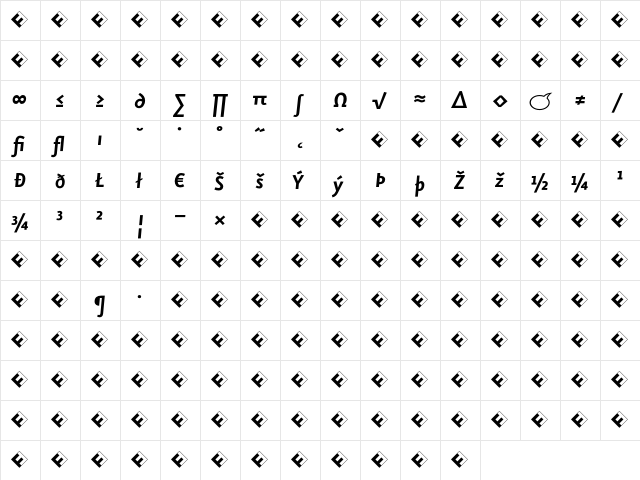
Eureka Sans Bold Italic Exp Font Preview
| Style | Bold Italic Exp |
Design Context for Eureka Sans Typeface
Eureka Sans offers clean, dependable letterforms without strong stylistic allegiance, making it a practical choice for designers who need flexibility. The dynamic lean of this cut emphasises speed and emphasis in any layout. The heavy weight commands attention and anchors typographic hierarchies.
Pro Tip: Try Eureka Sans for annotation and caption copy alongside an upright companion — the contrast in angle creates a dynamic but ordered typographic system.